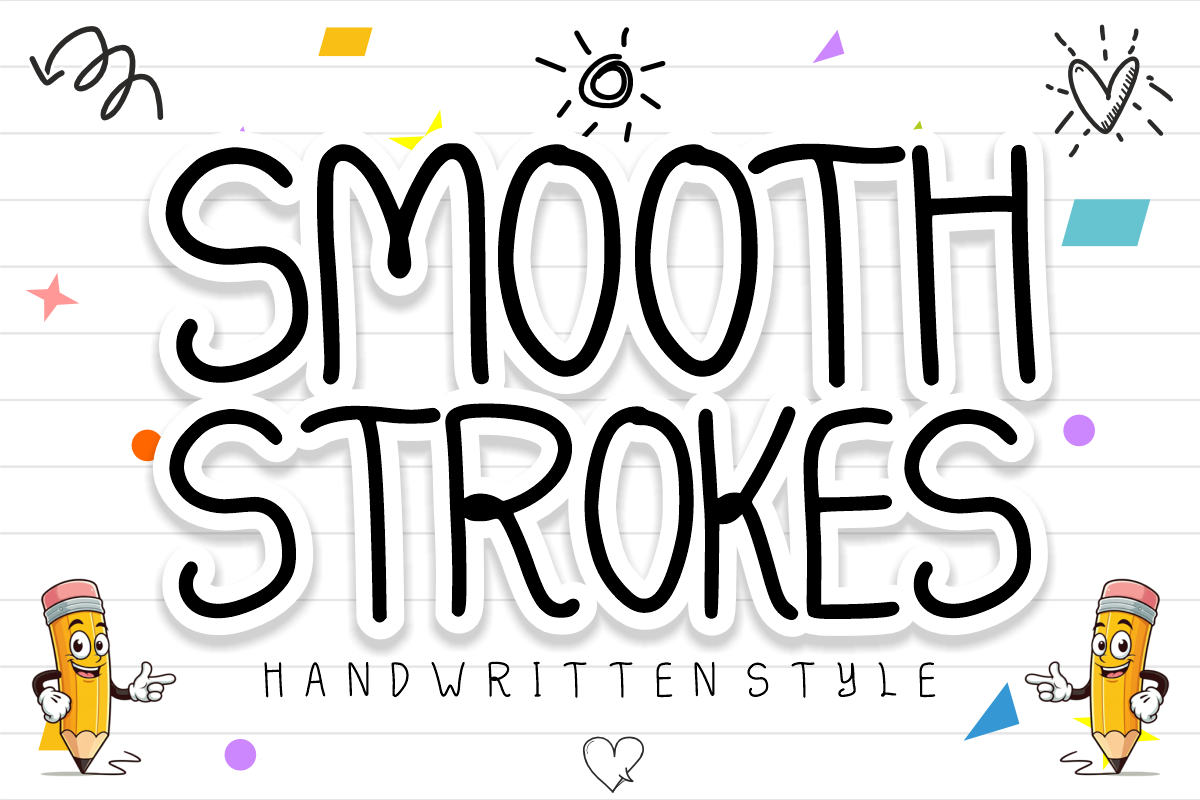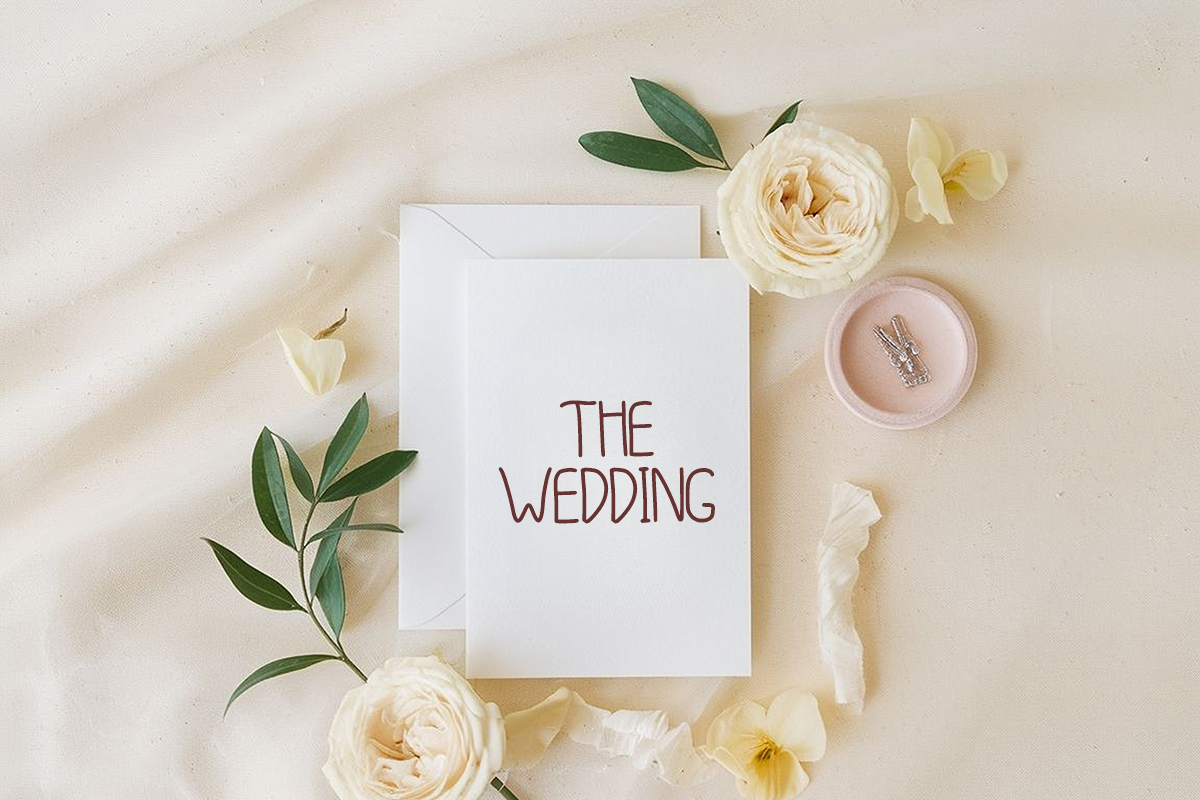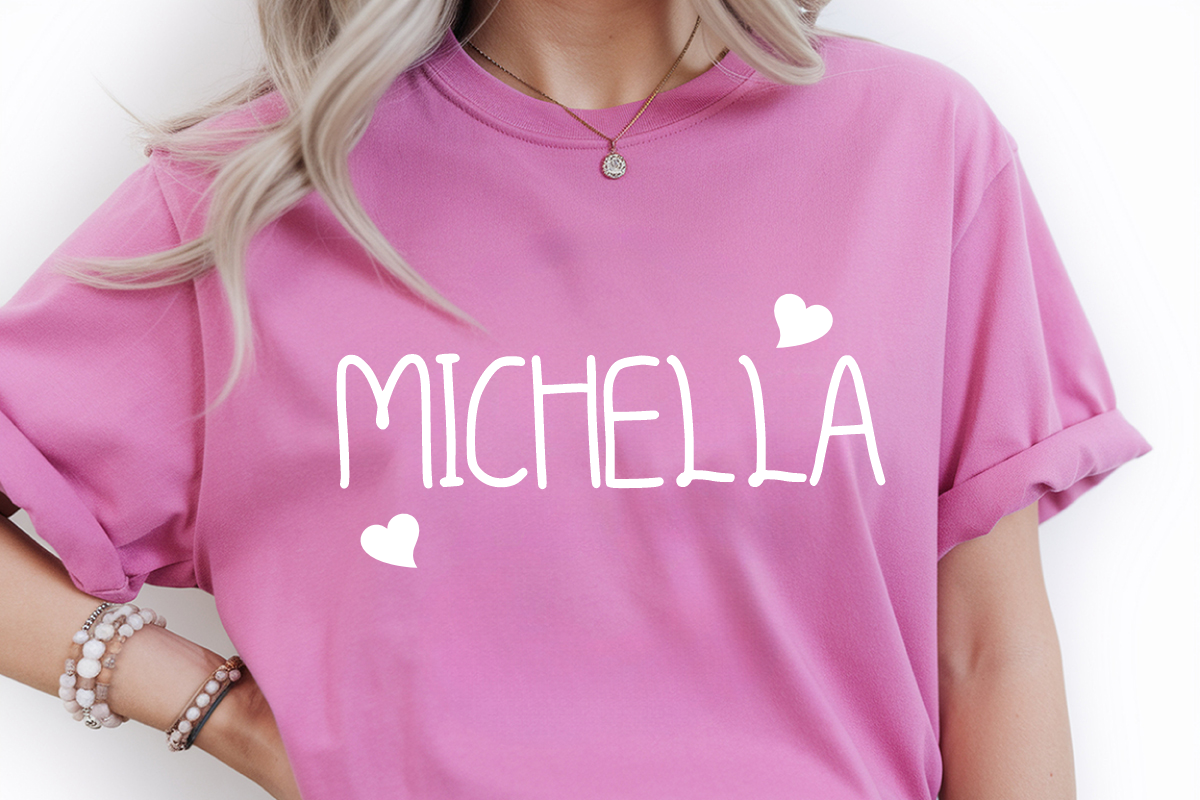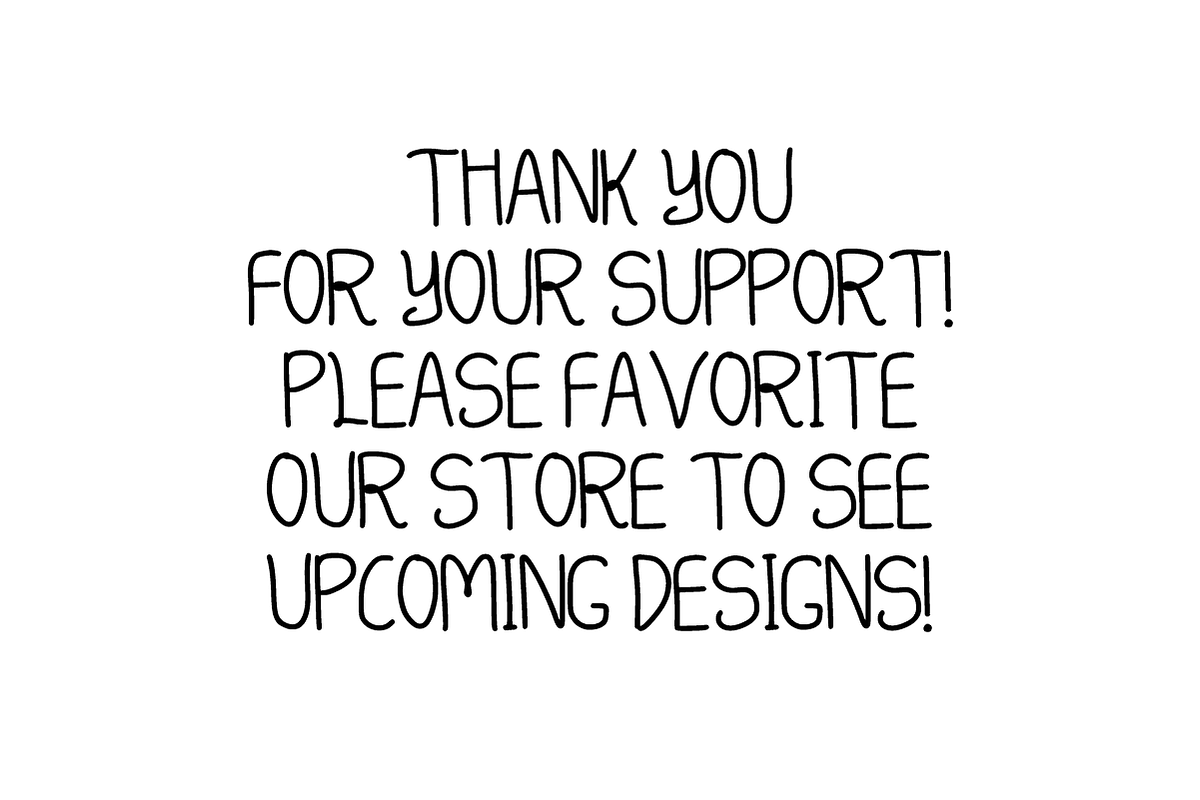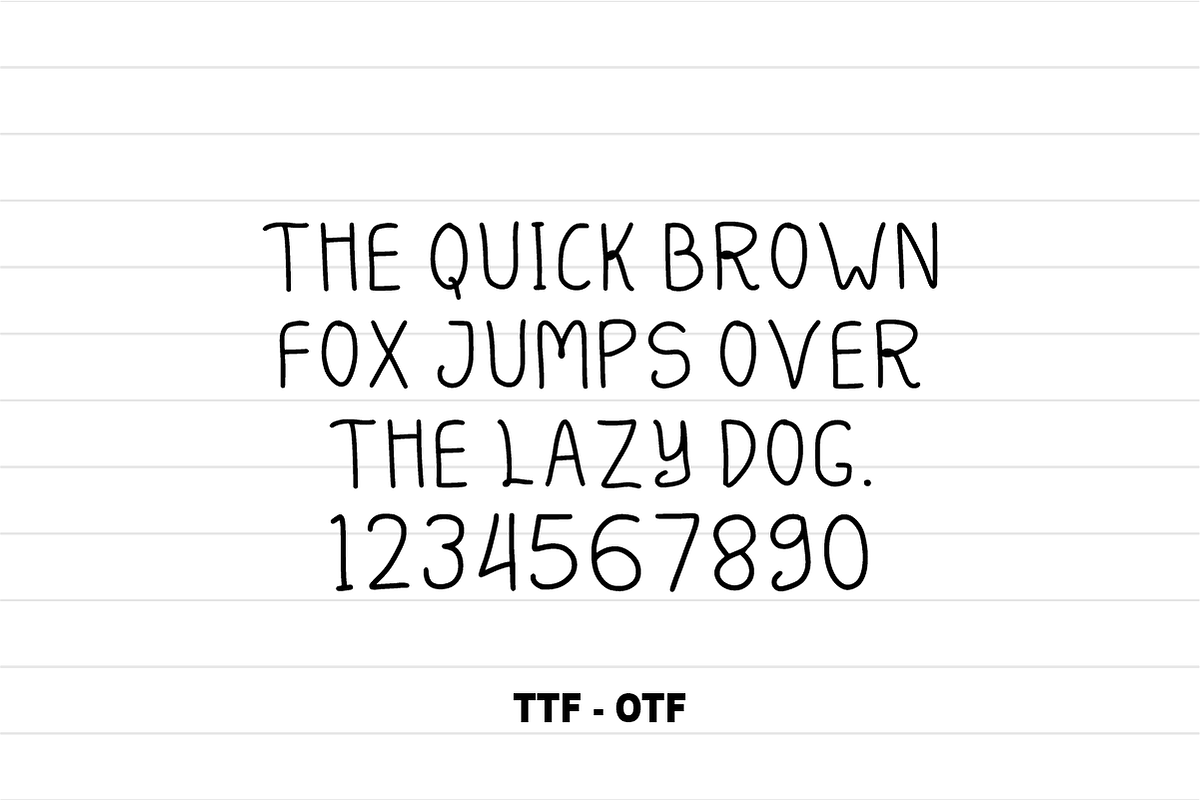
Smooth Strokes - Handwritten Font
🖋️ Smooth Strokes – Chic & Modern Monoline Script ✨
Effortless elegance in every stroke.
Smooth Strokes is a sophisticated monoline script font designed for those who need a perfect balance between a handmade feel and professional polish. With its consistent line weight and fluid, graceful connections, this font captures a modern, minimalist aesthetic that is both trendy and timeless. It’s the ideal choice for designers looking to add a personal, high-end touch to their projects without sacrificing clarity.
🌟 Why Smooth Strokes is a Design Essential:
Perfectly Fluid: Designed with smooth, rounded connections that mimic a steady hand and a fine-tip pen.
Modern Minimalist: The clean, single-weight line makes it incredibly versatile for both digital and print media.
High Legibility: Unlike overly complex scripts, Smooth Strokes is engineered to be easily readable at various sizes.
🎨 Ideal Applications:
💍 Wedding & Event Stationery: Elegant invitations, place cards, and "Thank You" notes.
💄 Boutique Branding: Chic logos for beauty, fashion, lifestyle, and jewelry brands.
📱 Social Media Mastery: Stylish Instagram quotes, Pinterest graphics, and elegant blog headers.
🎁 Packaging & Labels: Add a bespoke, artisanal touch to candles, perfumes, or organic products.
🖋️ Personal Signature: Perfect for digital signatures and personalized watermarks.
Character Set: Elegant Uppercase Letters (A-Z).
Numbers & Symbols: Complete numerals (0-9) and essential simple punctuation.